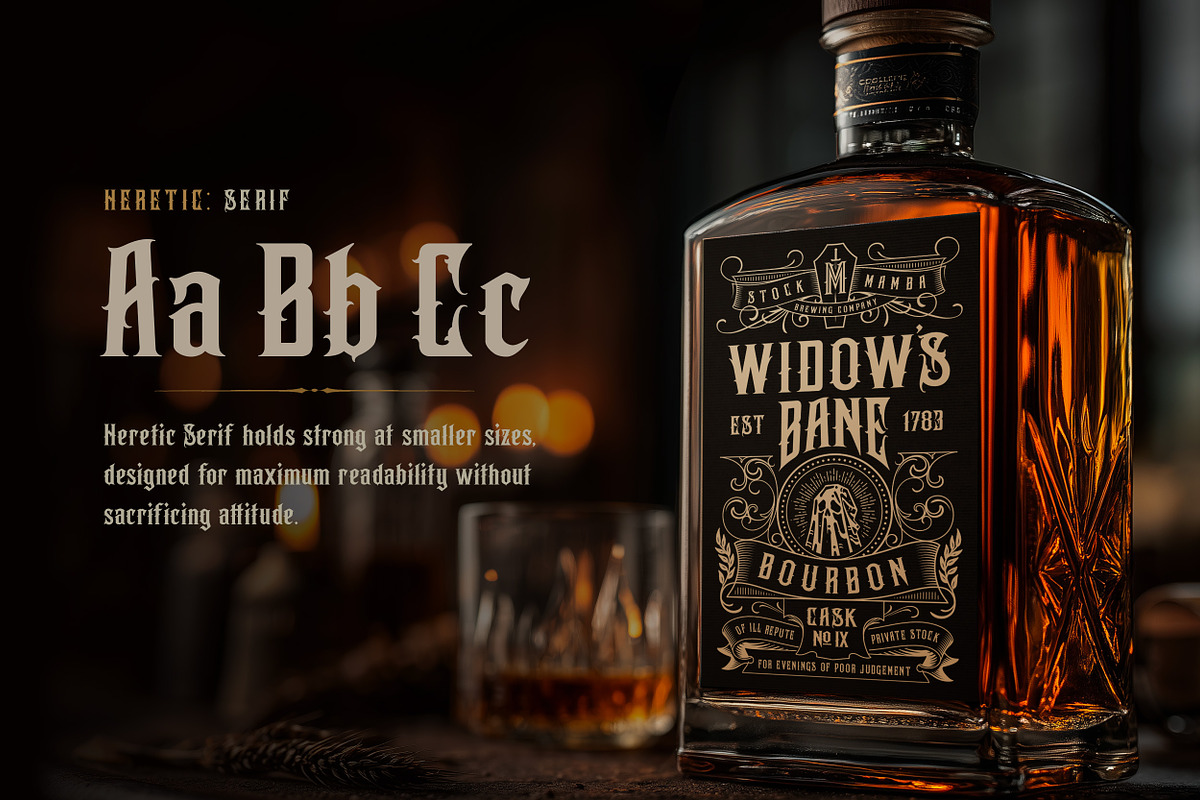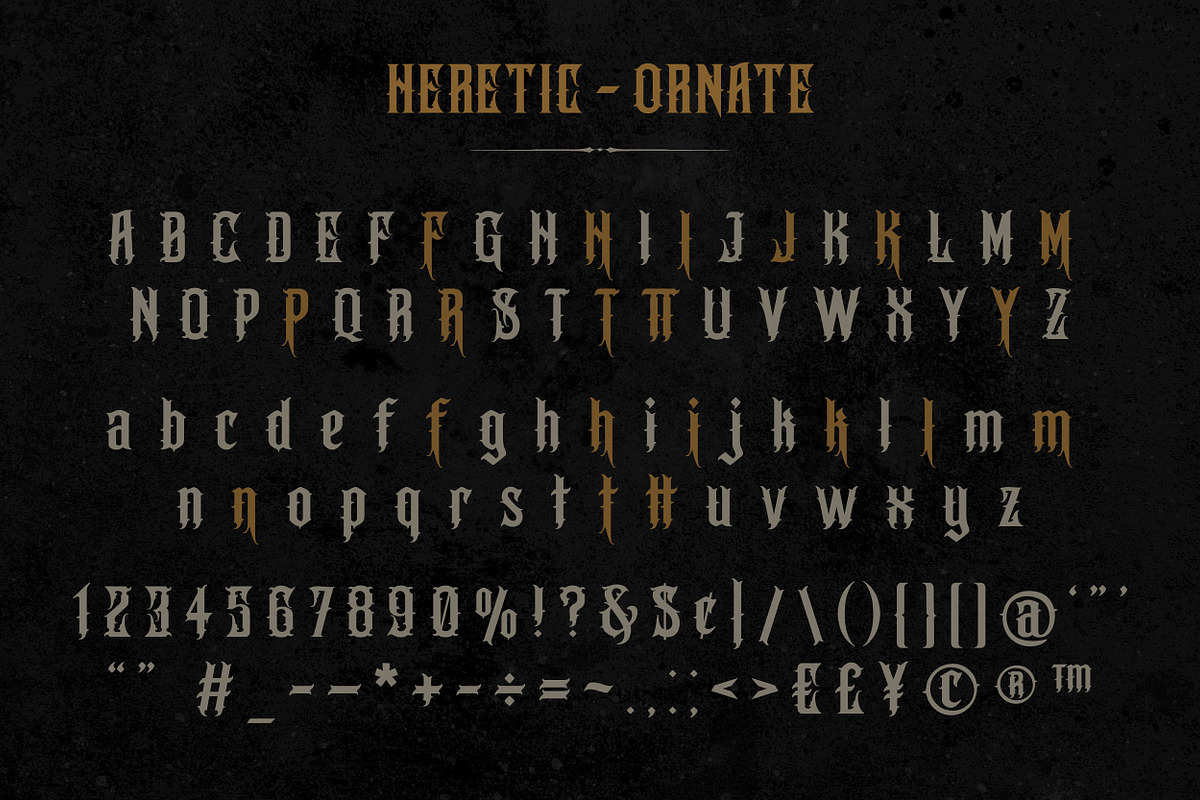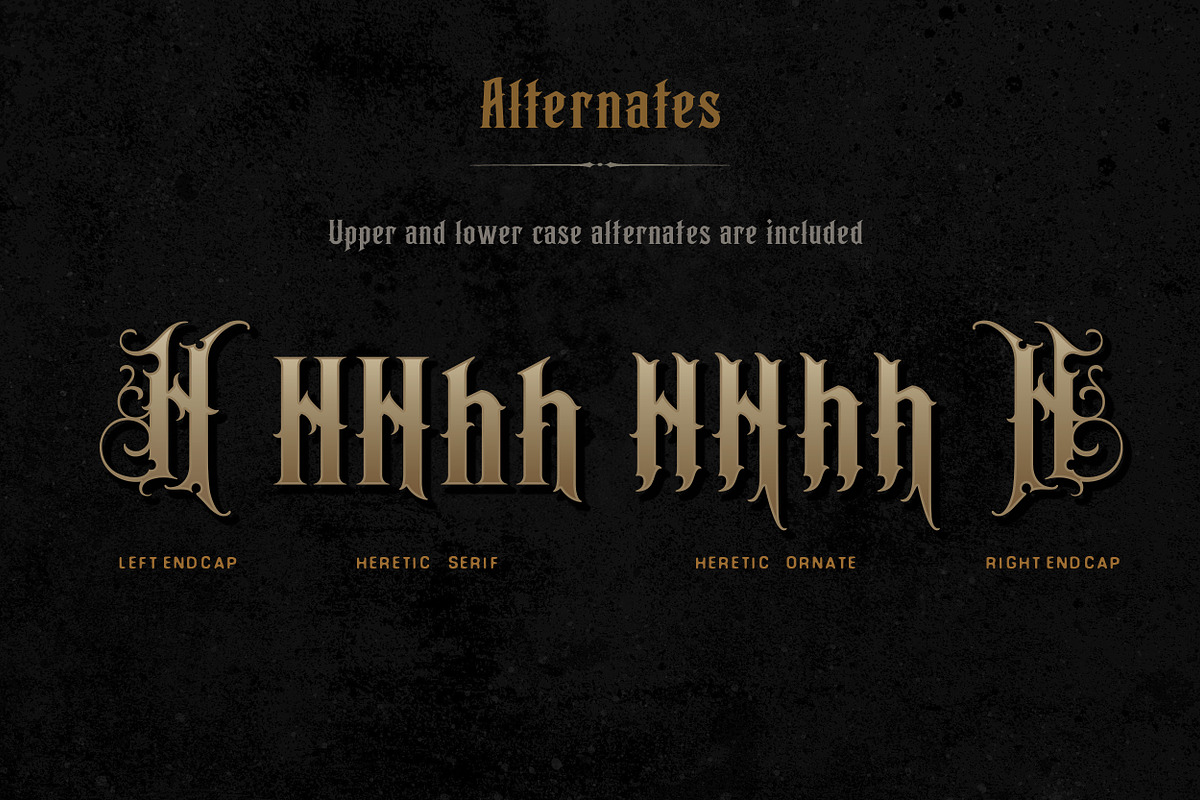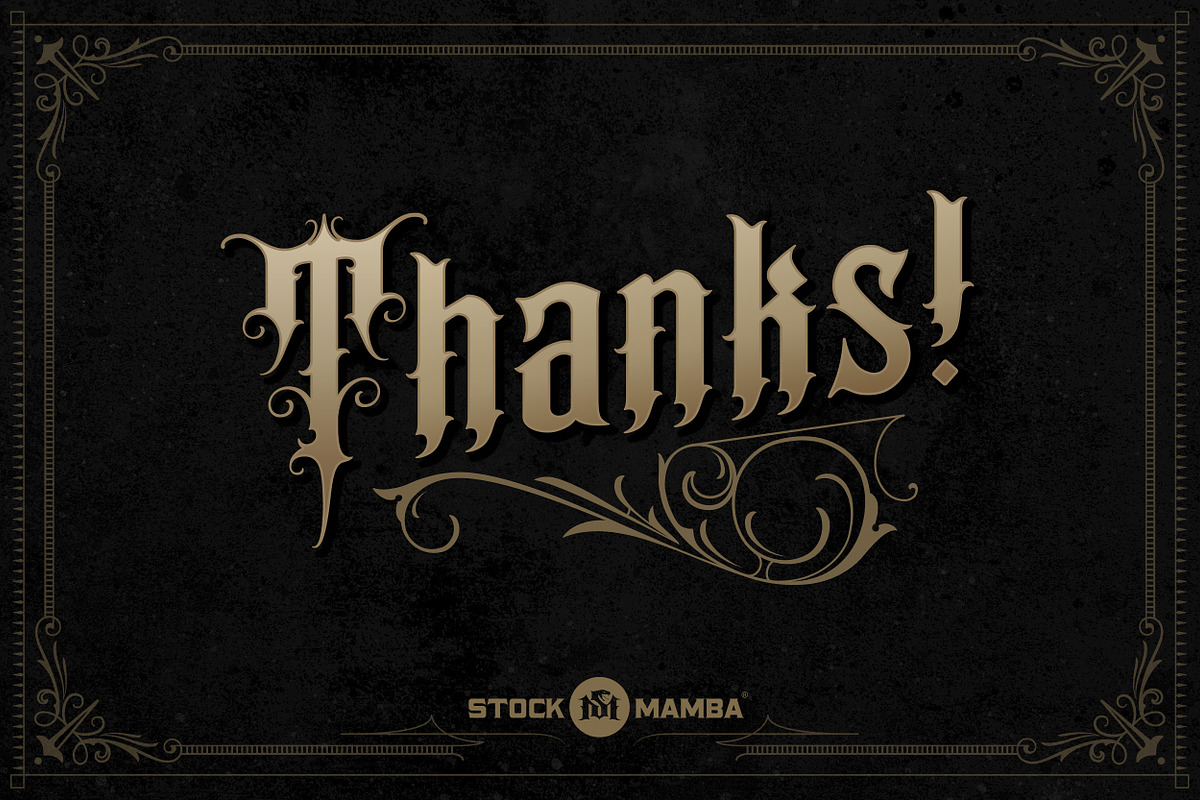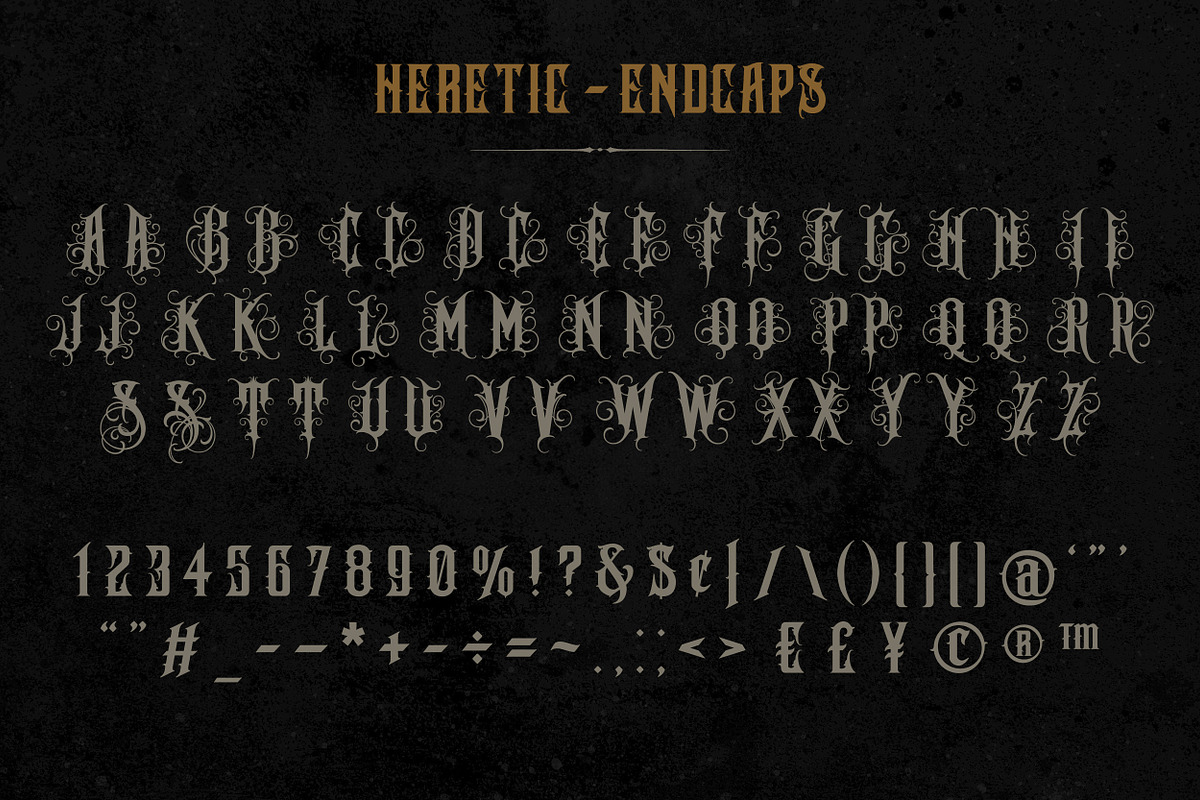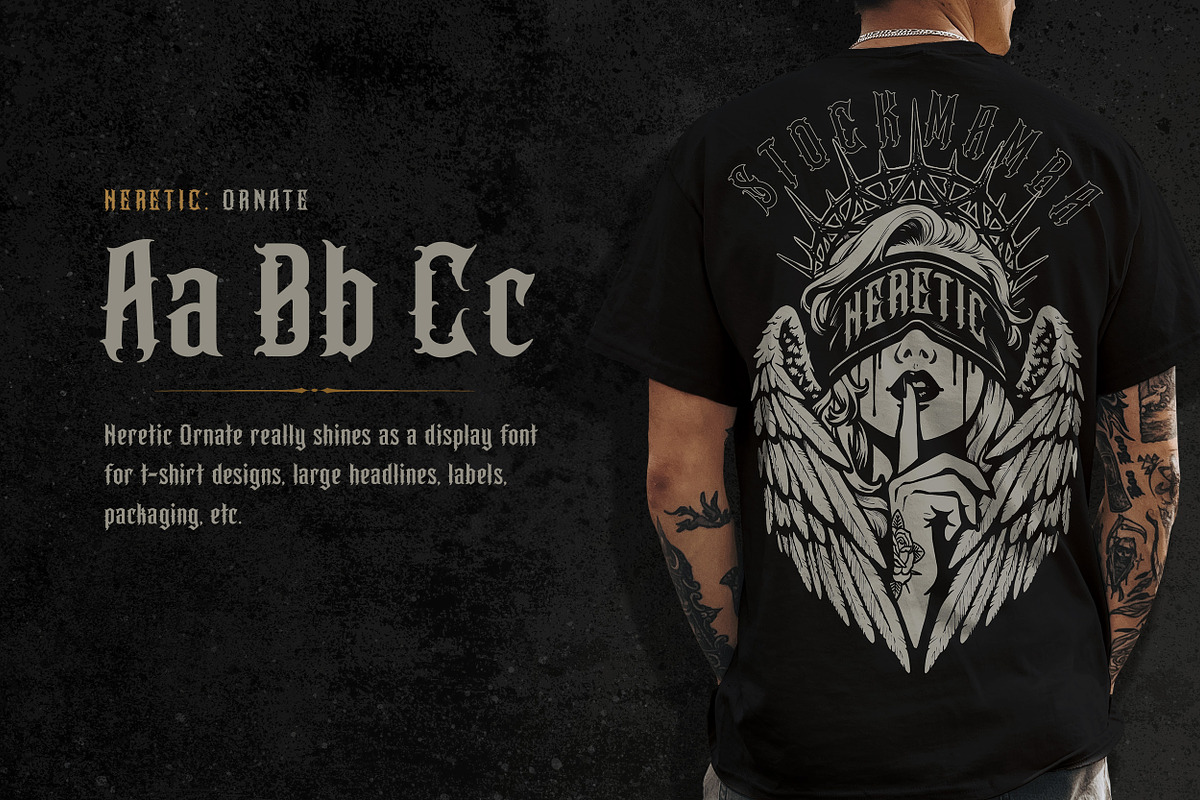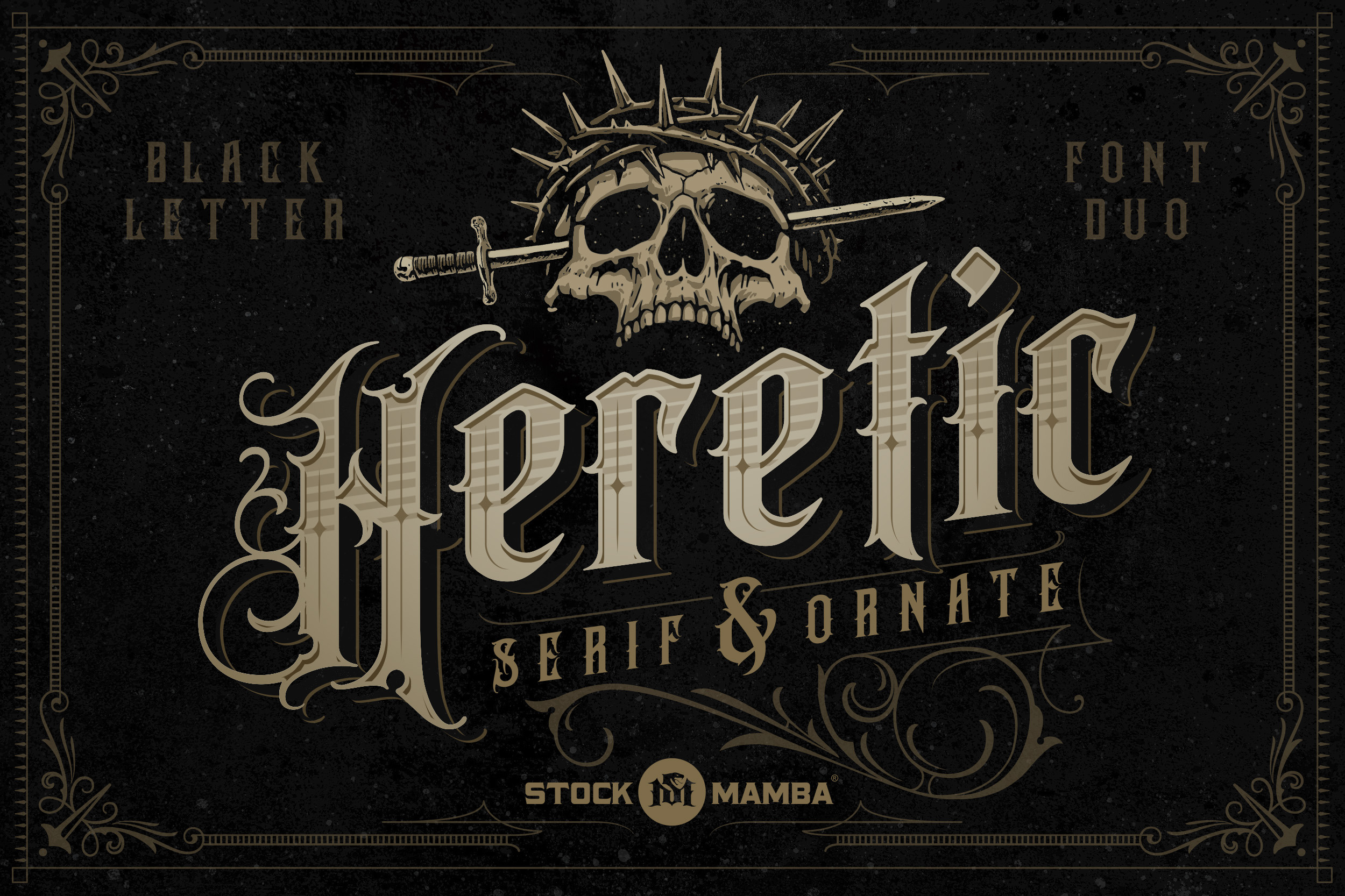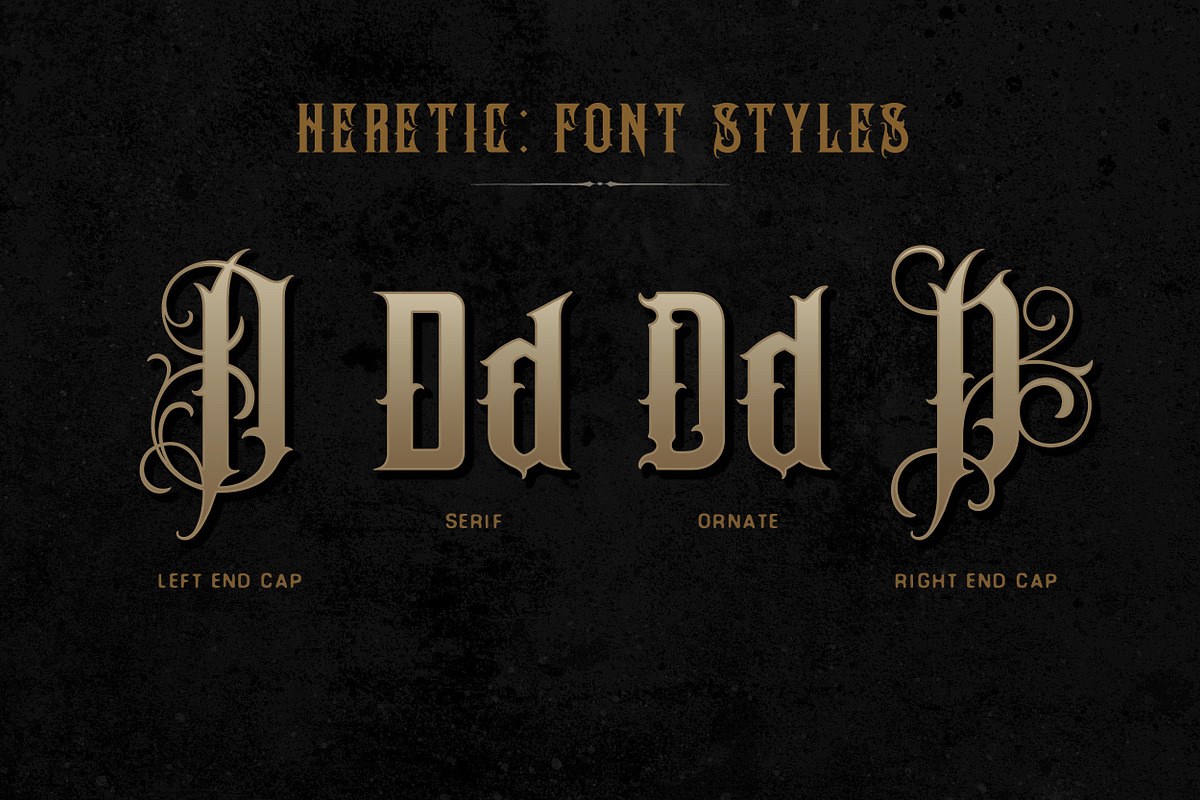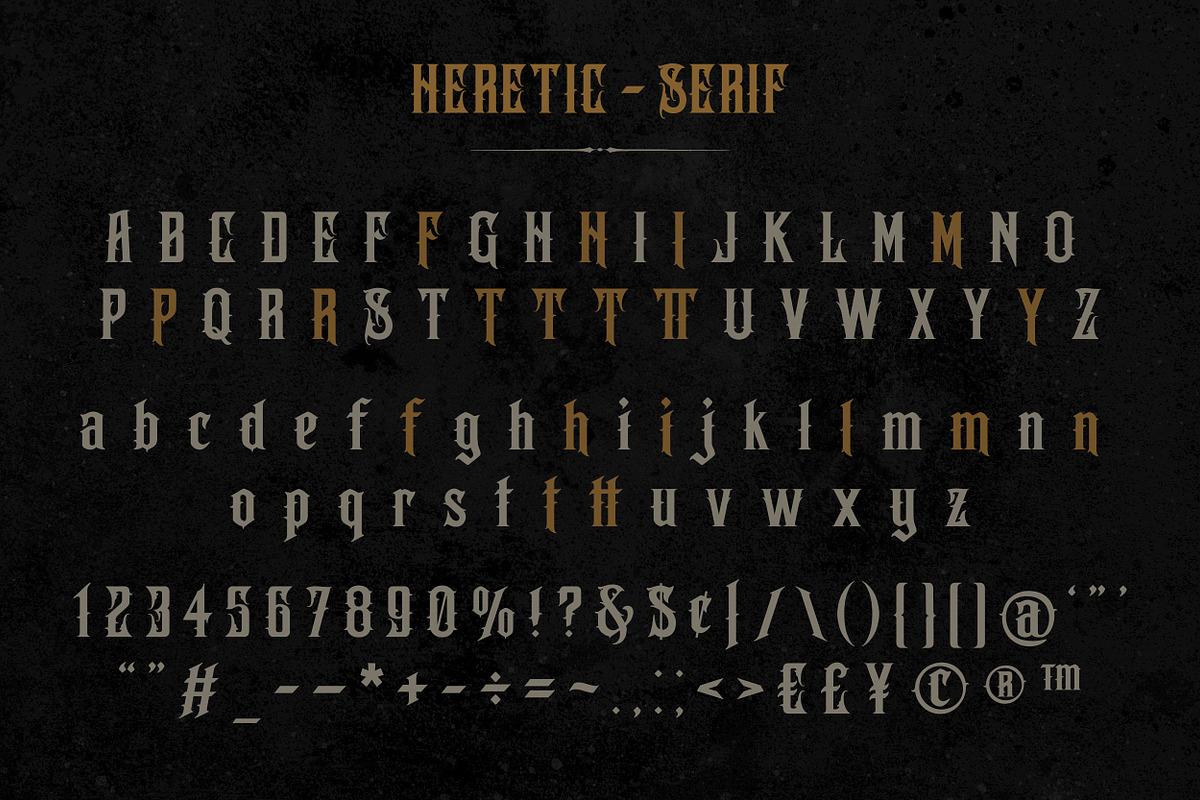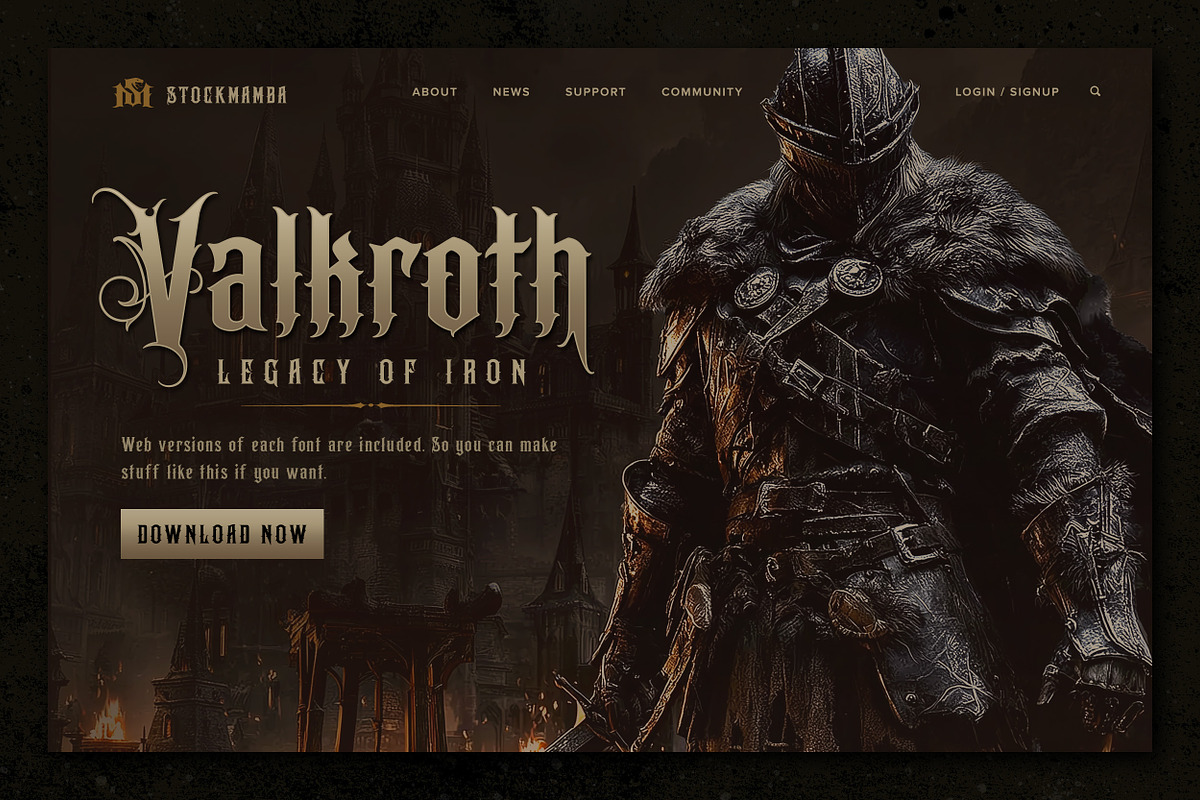
Heretic Blackletter Font Family
Heretic is a font family of three font files – Serif, Ornate, and EndCap, plus a bonus Ornaments font file. Together they make for a bold blackletter-inspired type system built for contrast, character, and impact. Heretic is rooted in traditional gothic forms and reimagined through a modern streetwear and tattoo lens. This collection gives you the flexibility to design with both clarity and expression.
The Serif style delivers a cleaner, more structured version of blackletter letterforms for better readability, while the Ornate version really shines as a display font for t-shirt and tattoo-inspired designs, coffee, whiskey, and craft branding, album art, posters, etc. The Drop Cap style pushes even further—featuring tall, highly decorative characters designed to act as statement initials or finishing accents.
To complete the system, Heretic also includes a Bonus Ornament Font filled with custom flourishes, dividers, and framing elements—perfect for building logos, badges, and layouts with a cohesive look. Also included is a bonus font and eps file of matching swashes and ornaments. Capital letters will display them. Lower case letters will display a mirror image of the capital letter versions.